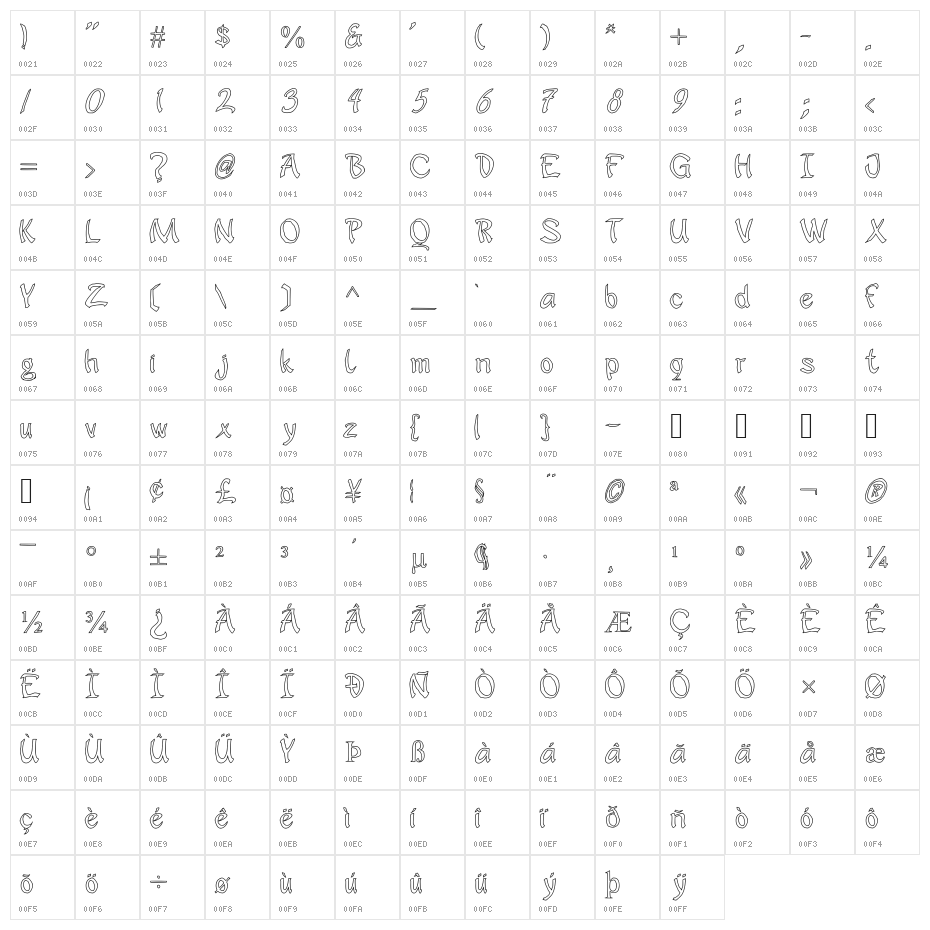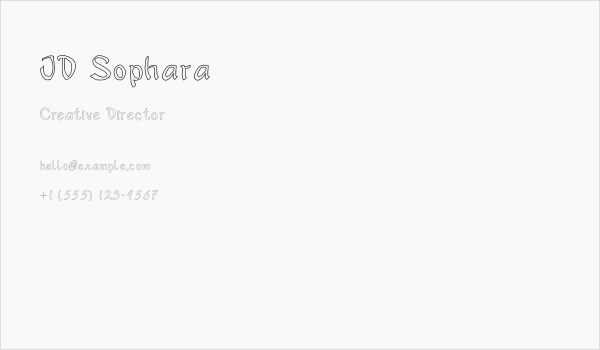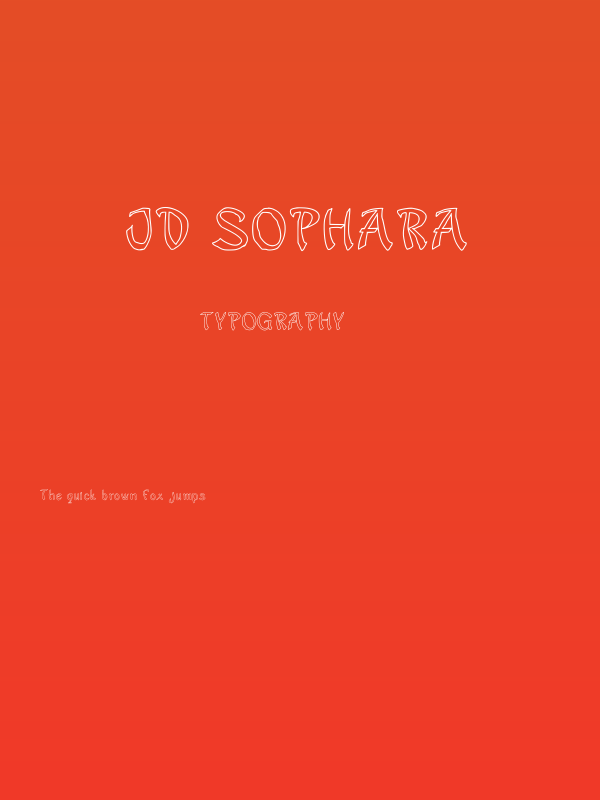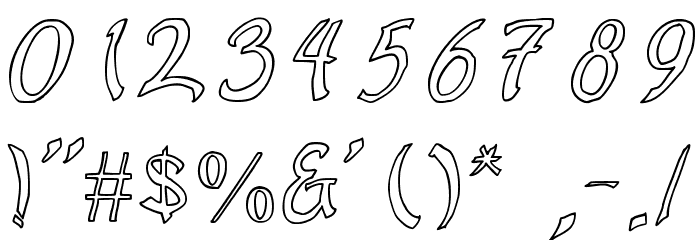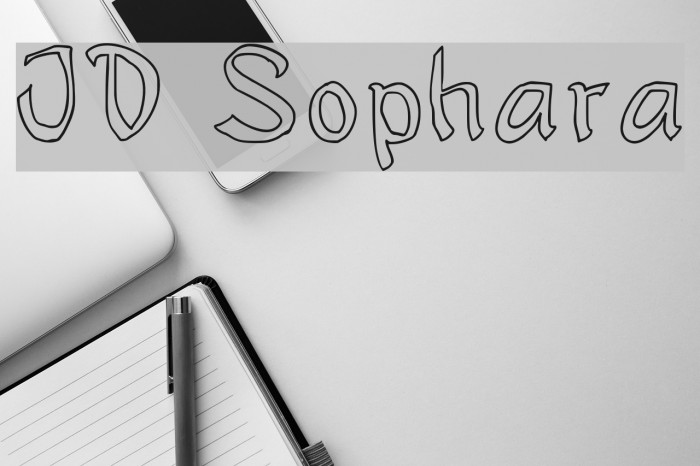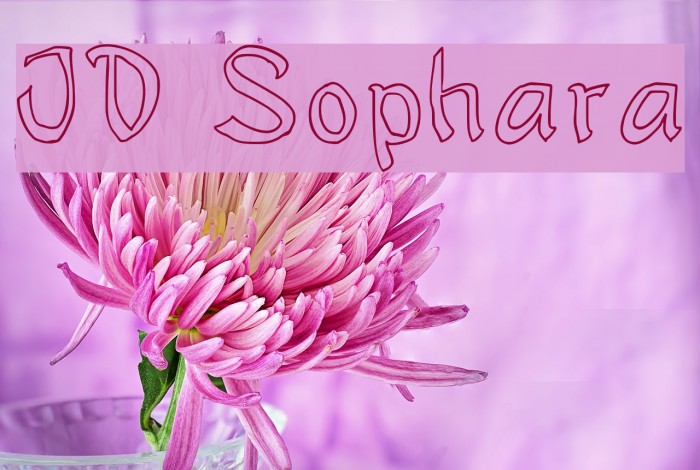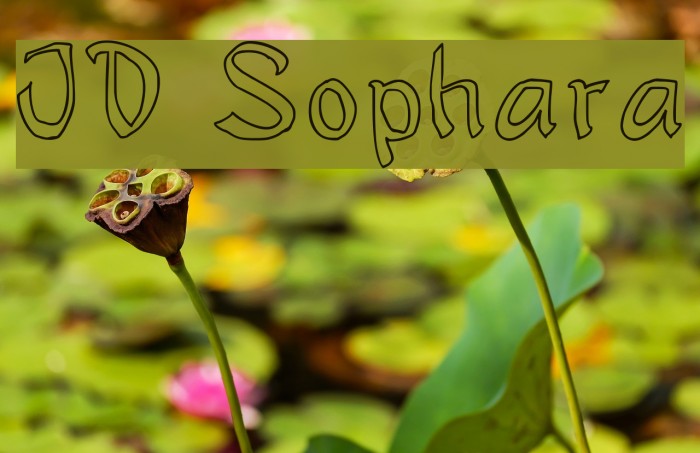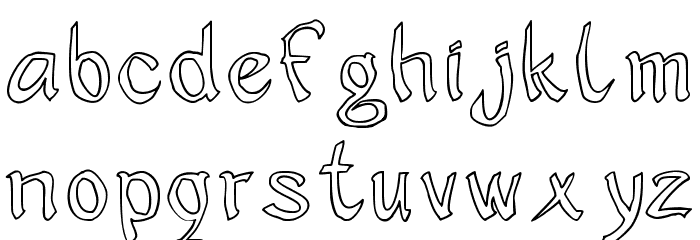
JD Sophara Font
JD Sophara Description
This font features a playful and artistic style with a hand-drawn appearance. The letters have a whimsical, slightly irregular form, giving them a unique and creative flair. The strokes are bold and dynamic, with varying thickness that adds to the font's lively character. The uppercase and lowercase letters maintain a consistent style, while the numerals and special characters complement the overall design. This font is perfect for projects that require a touch of creativity and individuality, such as artistic posters, children's books, or branding for creative businesses.
| Use Case | Headlines, Logos, Artistic projects |
| Proposed Projects | Ideal for artistic posters, children's books, creative branding, and playful designs. |